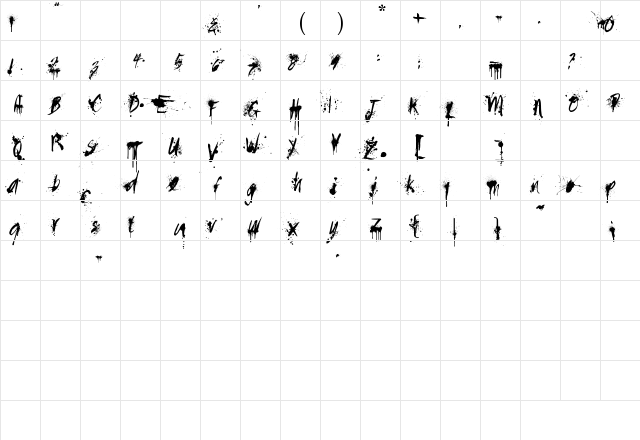
Painted Regular
| Foundry | hlmt |
| Designer | hlmt |
Design Context for Painted Typeface
Painted is a composed and adaptable typeface that performs quietly and consistently across a wide range of design contexts.